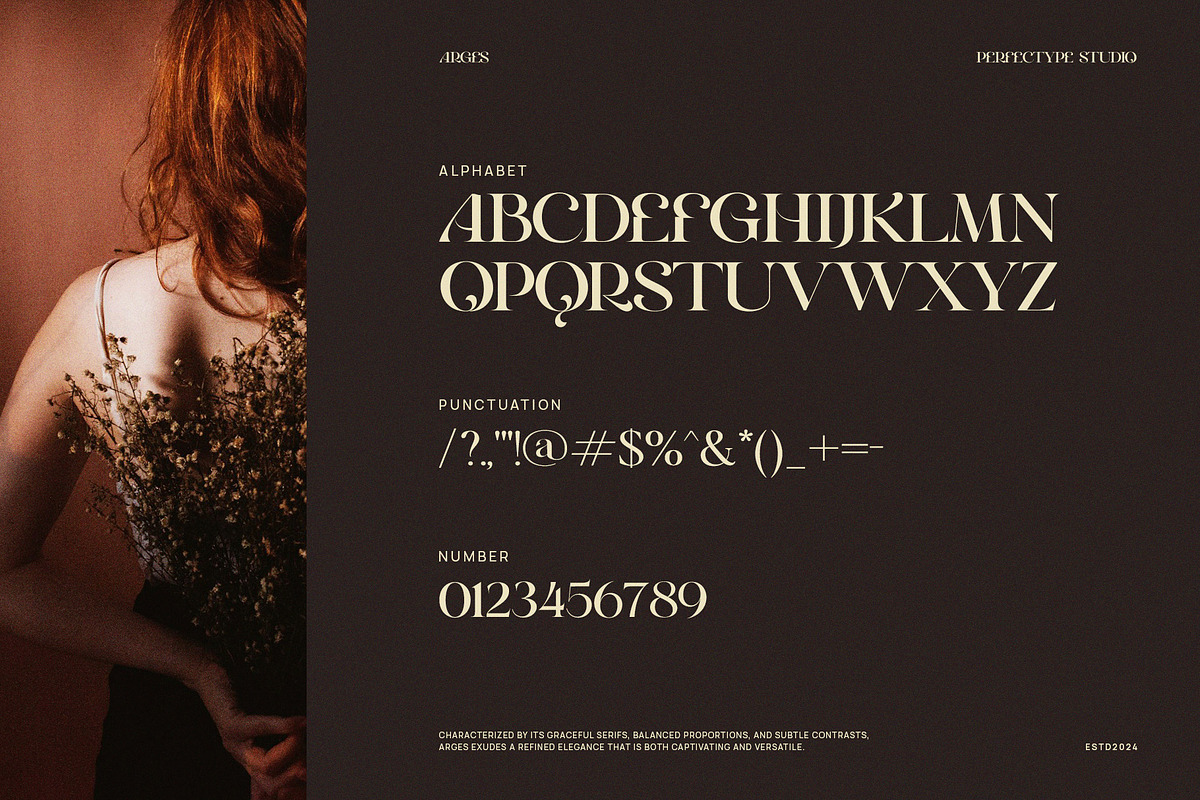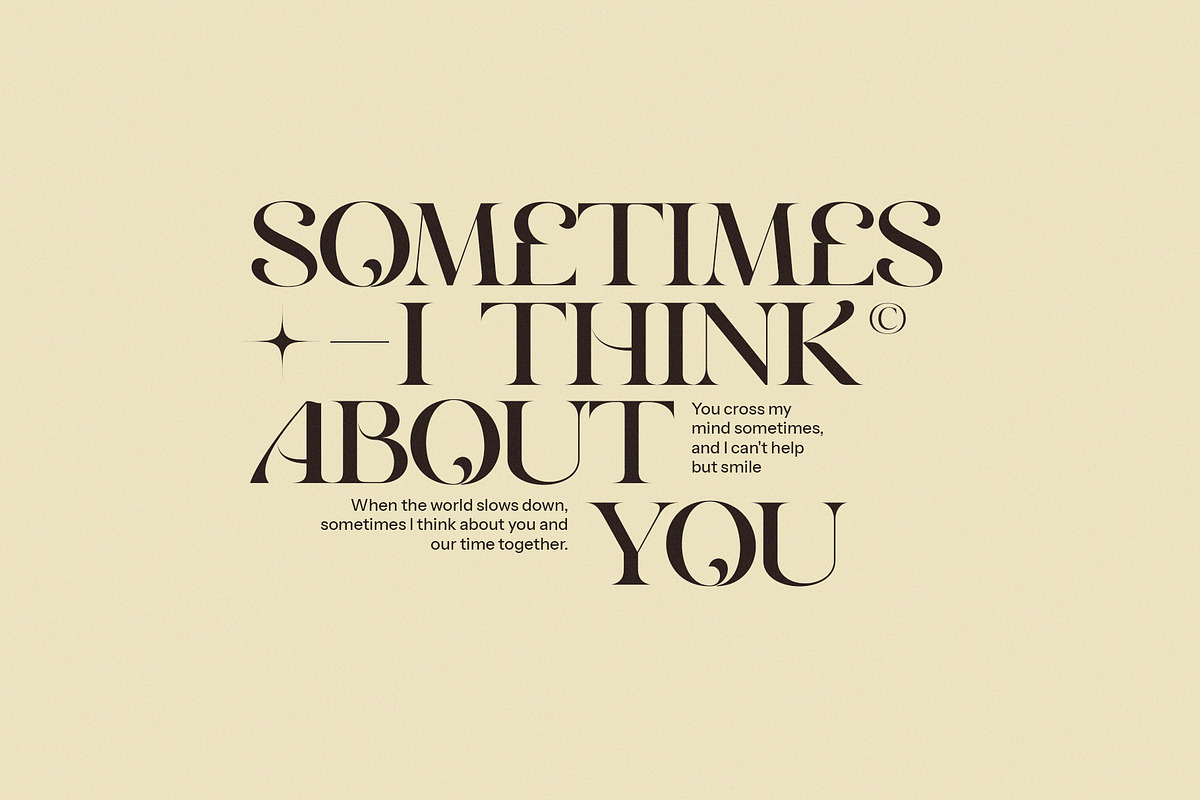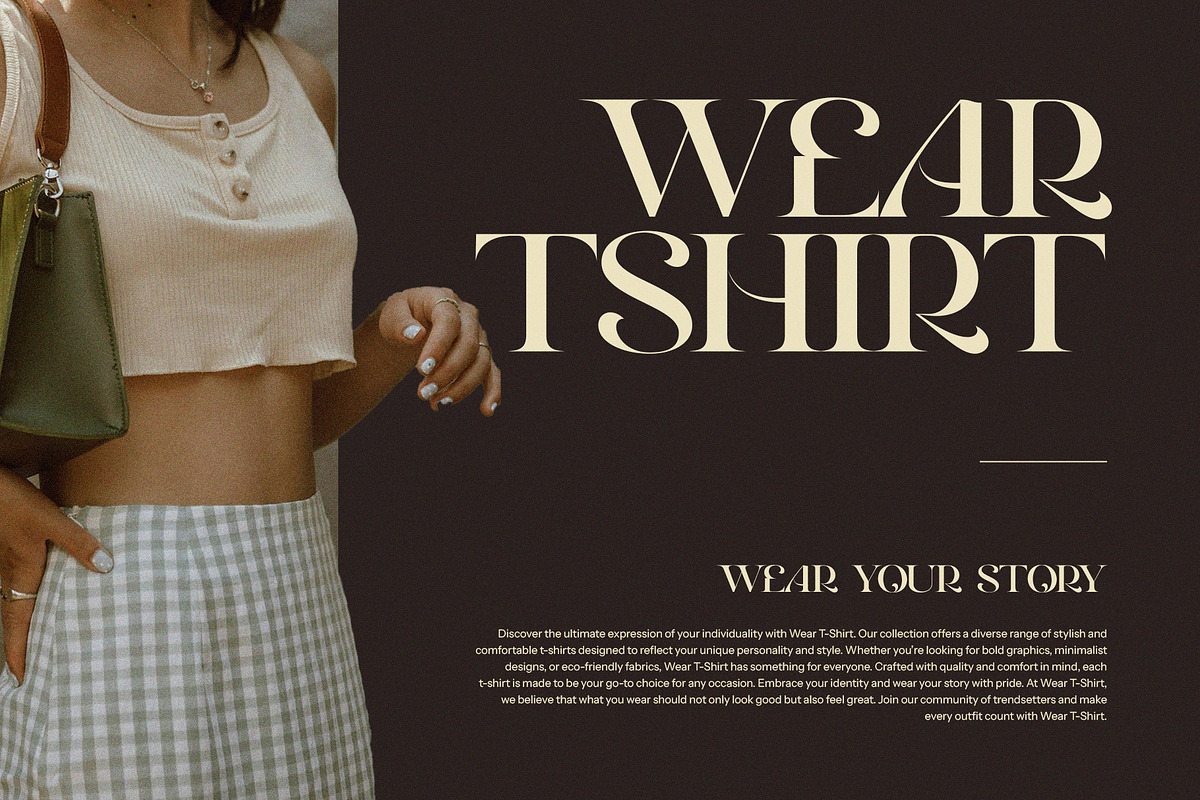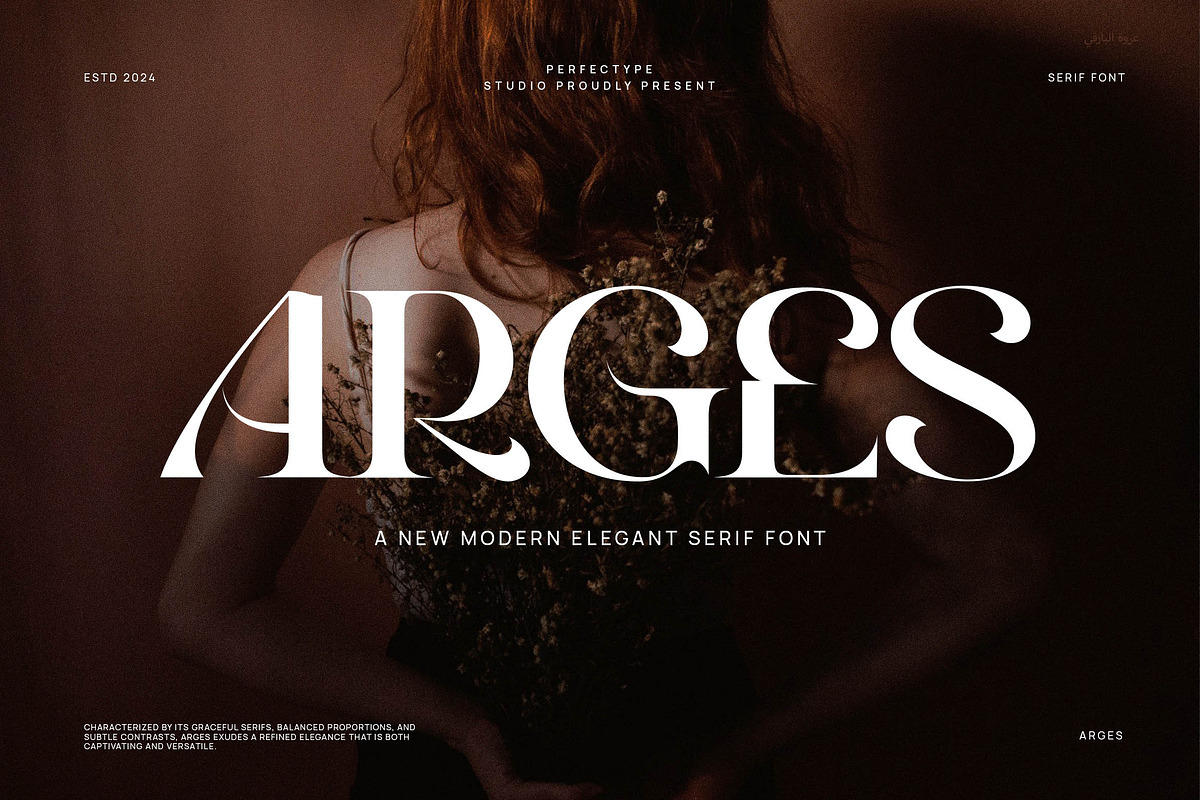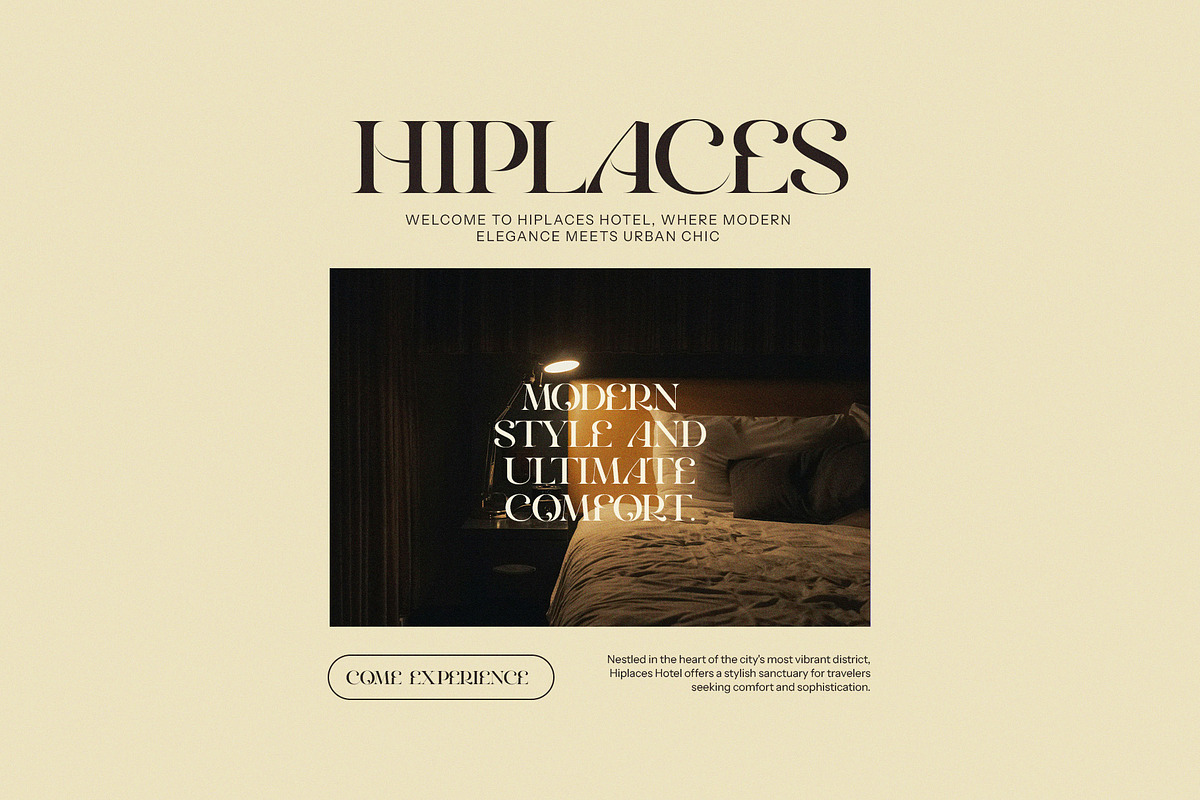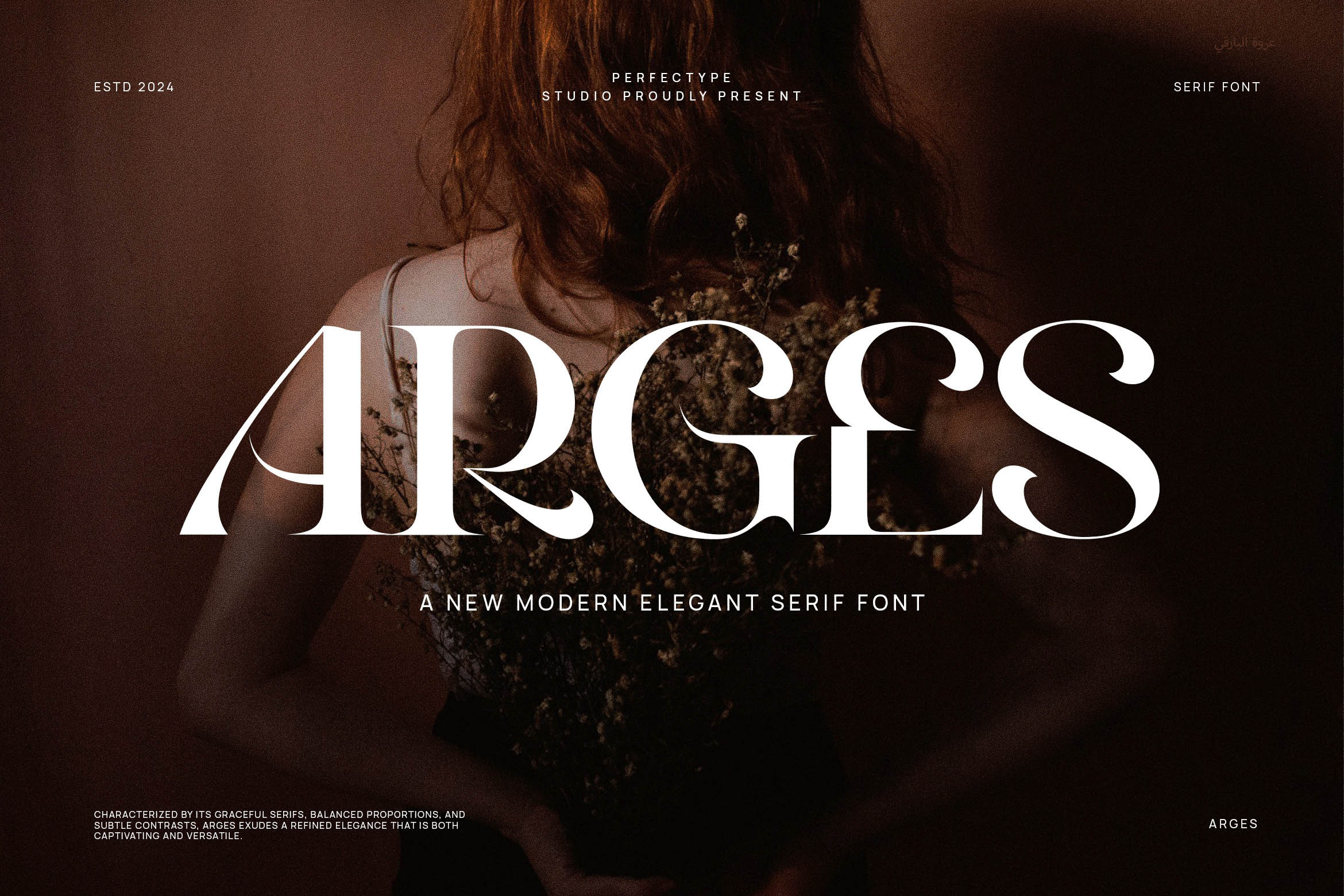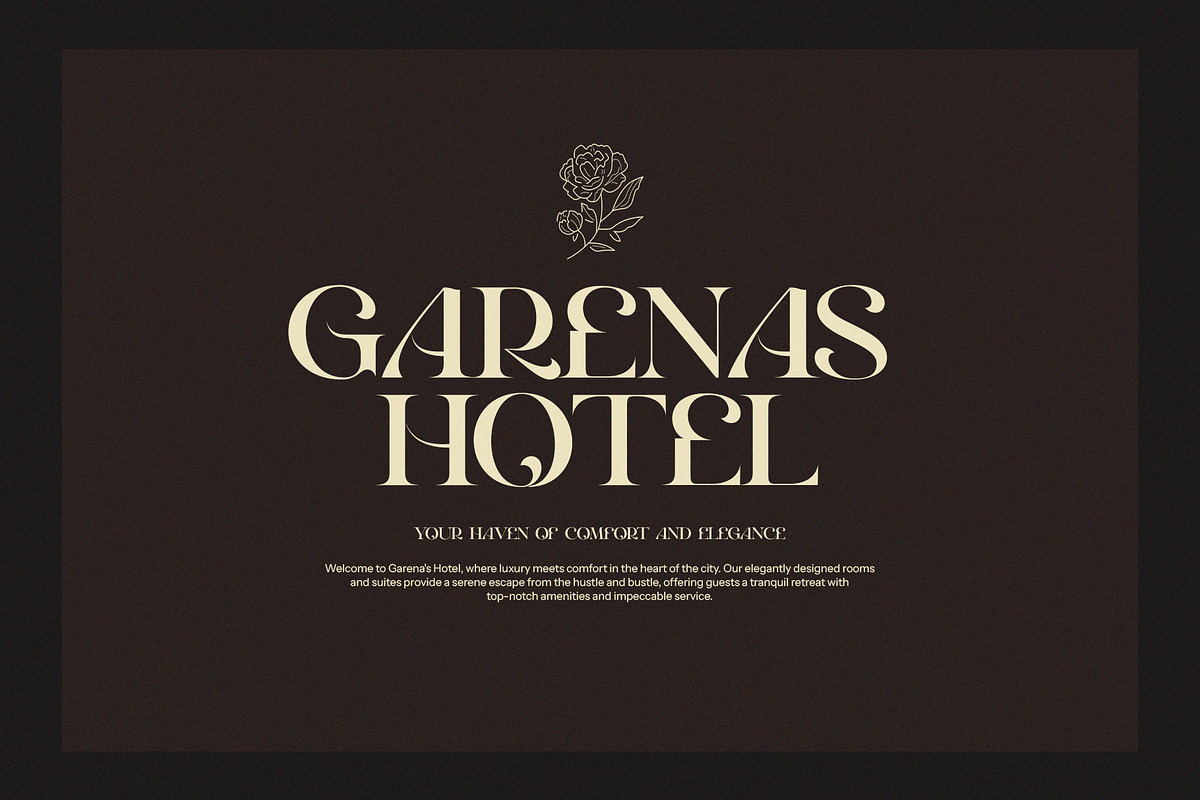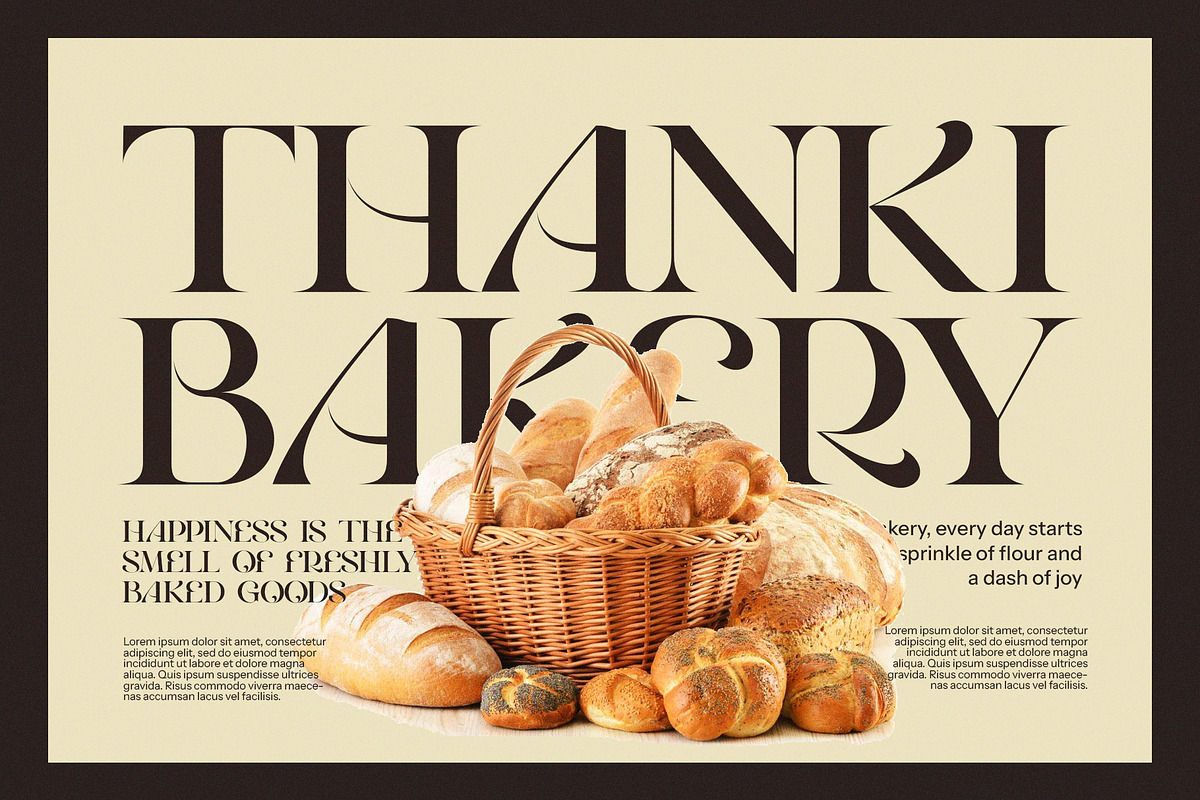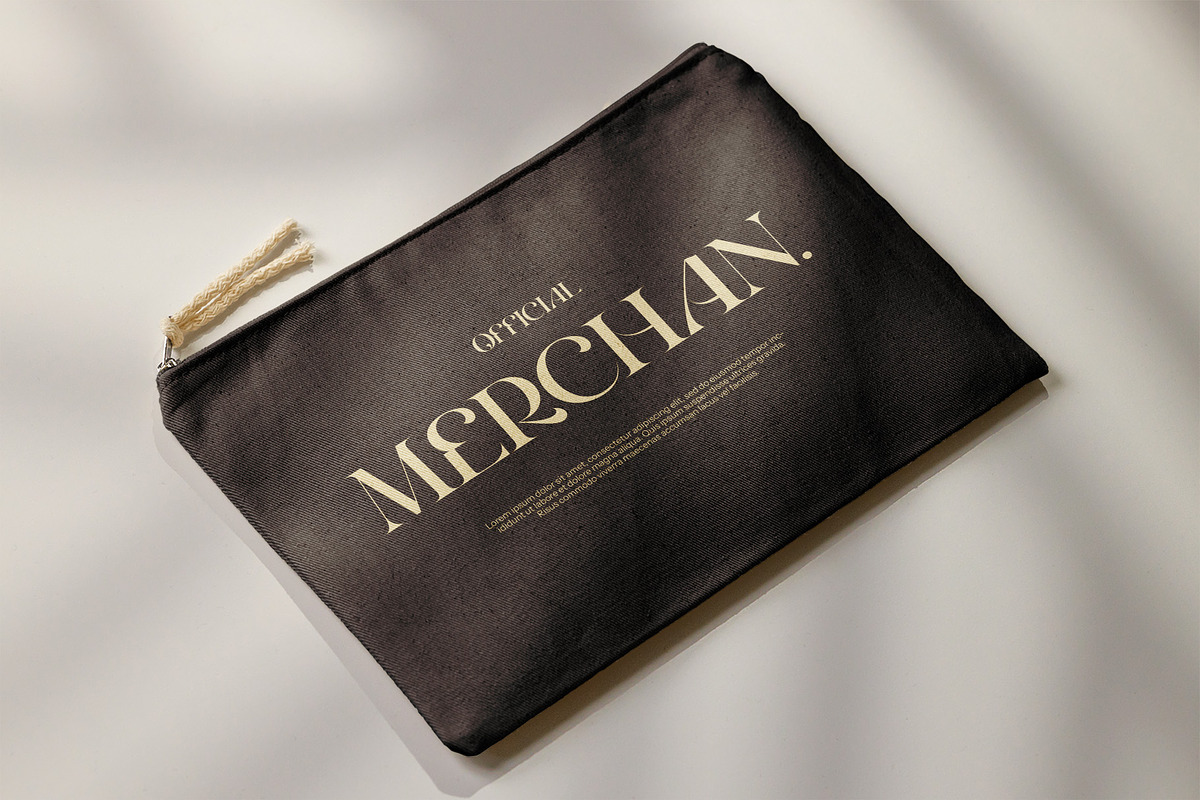
Arges Unique Serif Font
This is a very elegant and classy font for all branding and logo designs This type of serif font is created with elegance and luxury so it is perfect for all your design needs. This font is equipped with many beautiful and unique ligature and alternate options. This type of font is very suitable for your various needs such as branding projects, logos, social media posts, advertisements, labels, product packaging, photography, wedding designs, watermarks, invitation product designs, stationery, and any project, made at a high price. readability level.